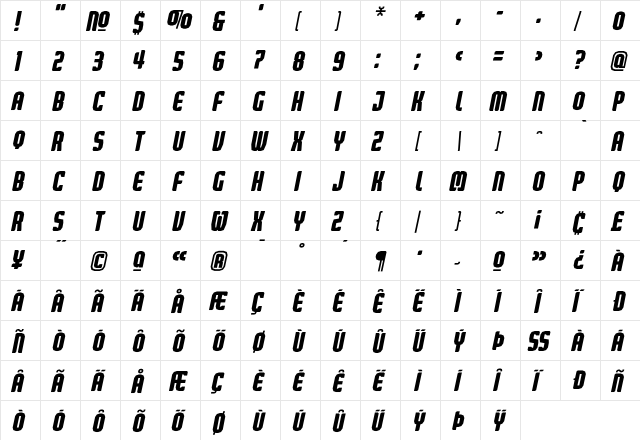
Judgement BlackCondensedItalic Font Preview
Design Context for Judgement Typeface
Judgement takes a measured approach to typography — its balanced proportions and neutral character make it a reliable workhorse for both digital and print work. The slanted form adds forward momentum and visual energy. Its narrow stance lets it pack a punch even in space-constrained designs.
Pro Tip: Try Judgement for annotation and caption copy alongside an upright companion — the contrast in angle creates a dynamic but ordered typographic system.